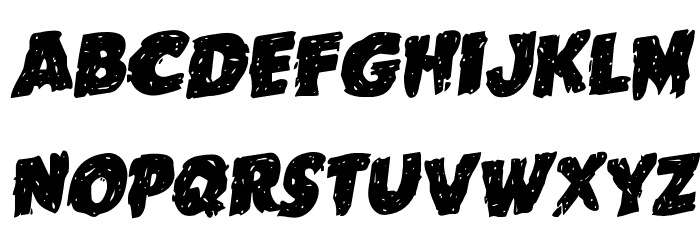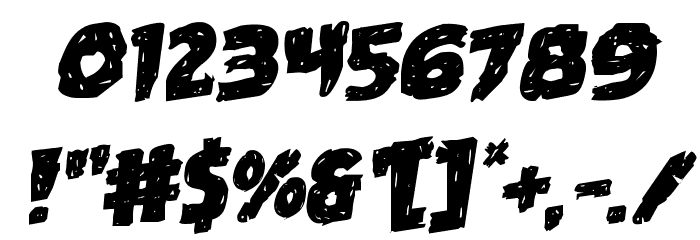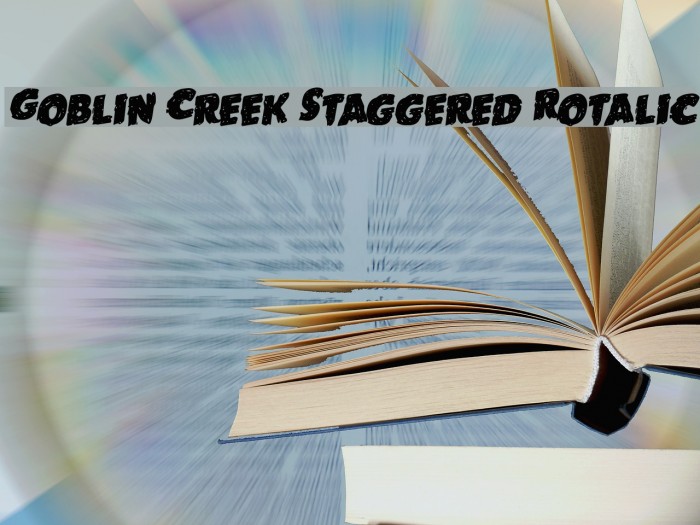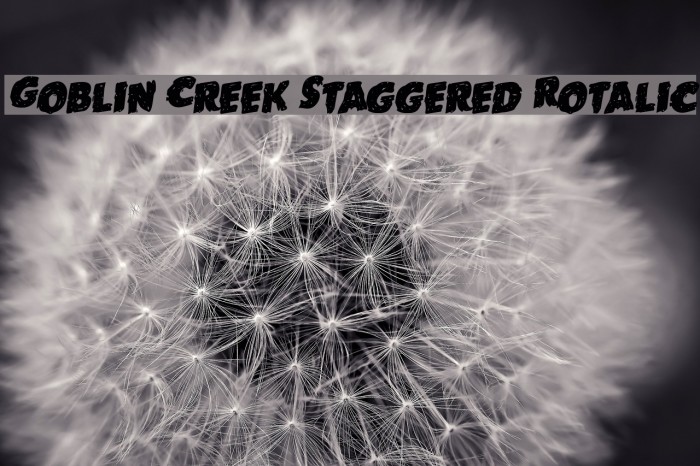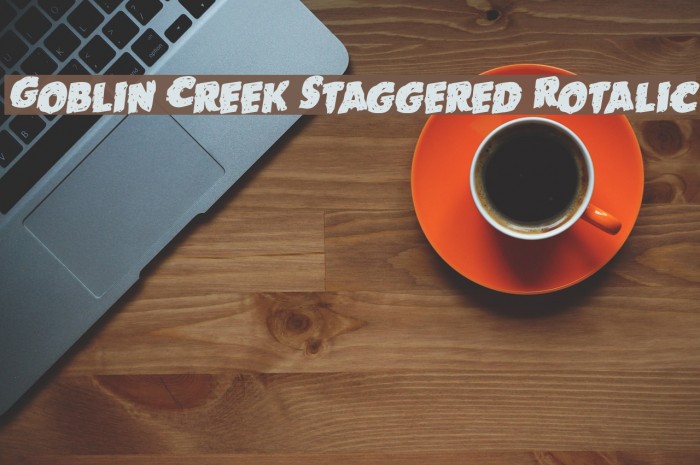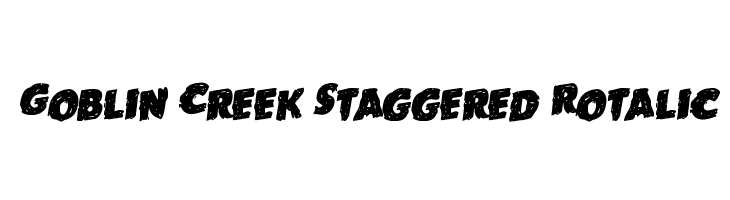
Goblin Creek Staggered Rotalic Font
This font features a bold, jagged style with a playful and chaotic appearance. The characters are heavily stylized with irregular edges, giving them a hand-drawn, almost graffiti-like feel. The strokes are thick and uneven, creating a sense of movement and energy. This font is highly decorative, with a unique texture that makes each letter stand out. The uppercase and lowercase letters maintain a consistent style, while the numbers and special characters are equally dynamic and expressive. The overall design is eye-catching and unconventional, perfect for projects that require a bold statement.
A bold, jagged, and playful font with a graffiti-like style.
- Proposed Projects: Ideal for posters, album covers, video game titles, and any project needing a bold, energetic look.